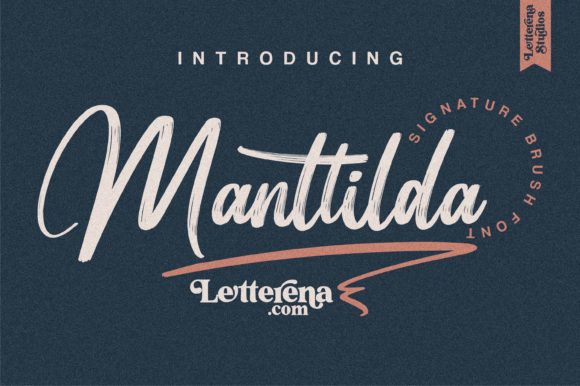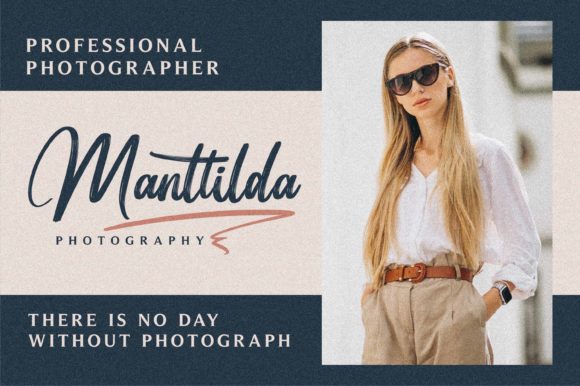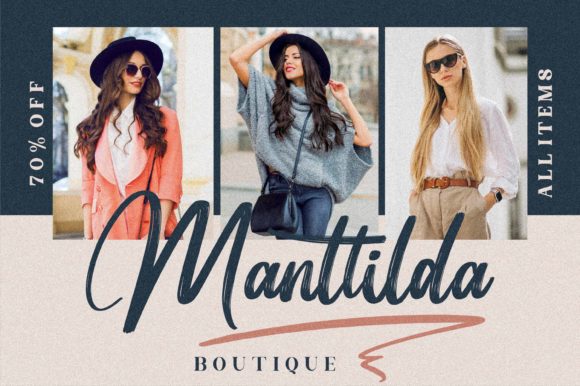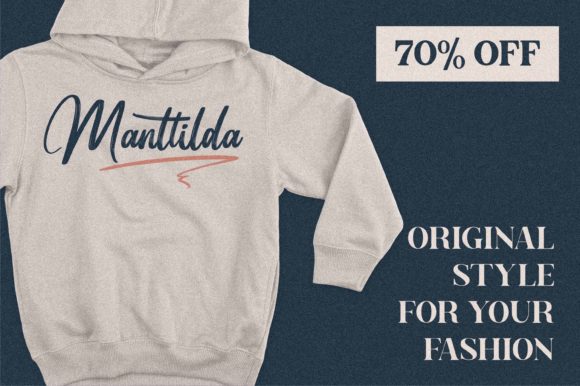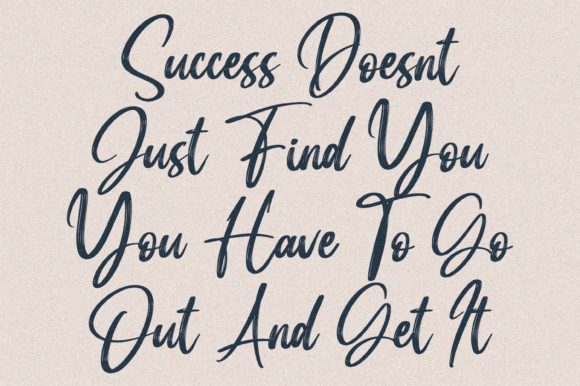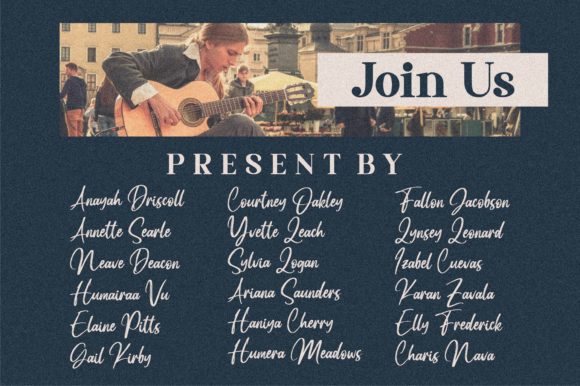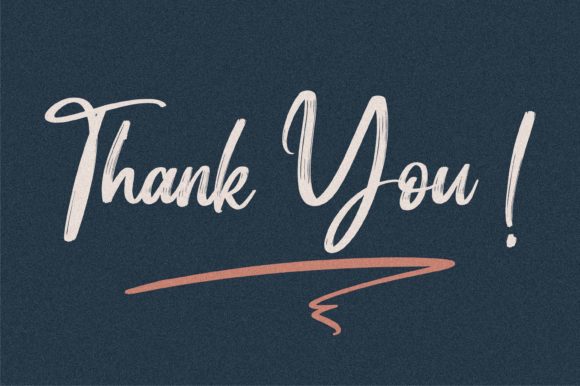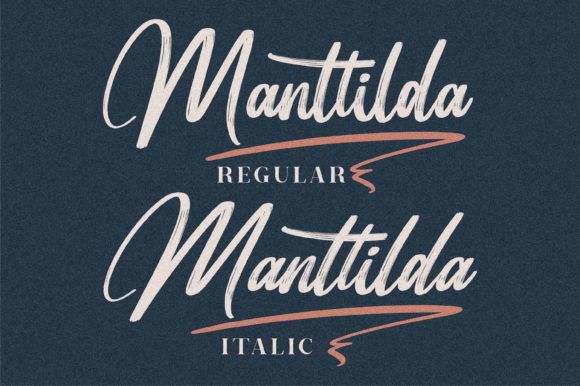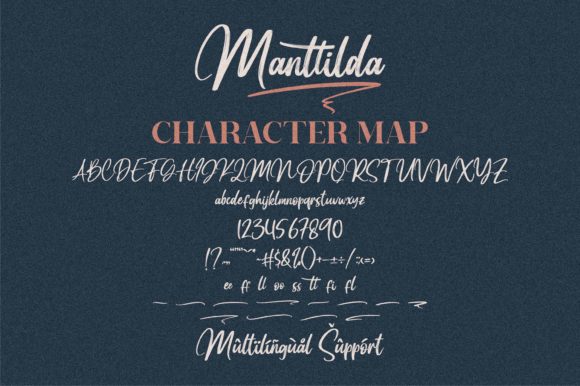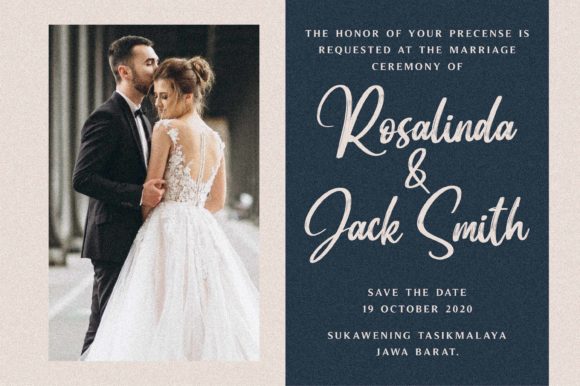
Manttilda Font
About Manttilda Font
Manttilda is an exquisite and bold paint brushed handwritten font that brings a unique and stylish touch to your headlines and logotype projects. Its brush strokes create a sense of energy and movement, making it perfect for designs that aim to make a bold statement.
With Manttilda, your typography will exude strength, confidence, and a touch of nostalgia. The font’s daring and dynamic appearance adds a sense of character and personality to your designs, making them stand out and leave a lasting impression on your audience.
The paint brushed texture of Manttilda gives it a distinct and artistic look. Each letter is carefully crafted with expressive brush strokes, resulting in a font that is visually captivating and full of charm. Its imperfections and natural variations bring an authentic and handcrafted feel to your designs, adding depth and character.
Manttilda is particularly well-suited for headlines and logotype projects where you want to make a strong visual impact. Whether you’re creating a bold brand identity, designing eye-catching posters, or crafting memorable headlines, this font will grab attention and convey a sense of creativity and confidence.
The nostalgic character of Manttilda adds a touch of vintage charm to your designs. It evokes a sense of familiarity and timelessness, making it a versatile choice for various design styles. From retro-inspired branding to modern designs that embrace the past, this font effortlessly brings a sense of nostalgia to your projects.
Let Manttilda be the go-to font for your creative endeavors. Its gorgeous and daring nature, combined with its strong and confident appearance, will elevate your designs and make them truly memorable. Embrace its paint brushed aesthetics and infuse your headlines and logotypes with a stylish touch that captures attention and stands out from the crowd.